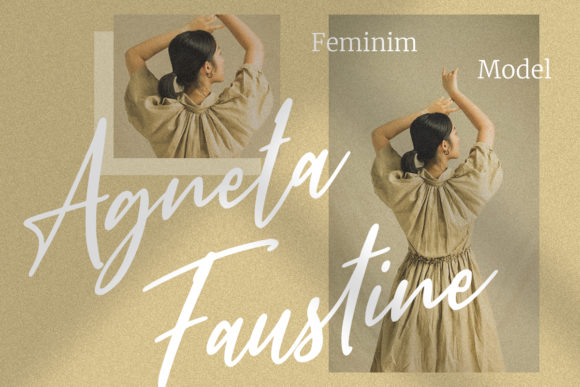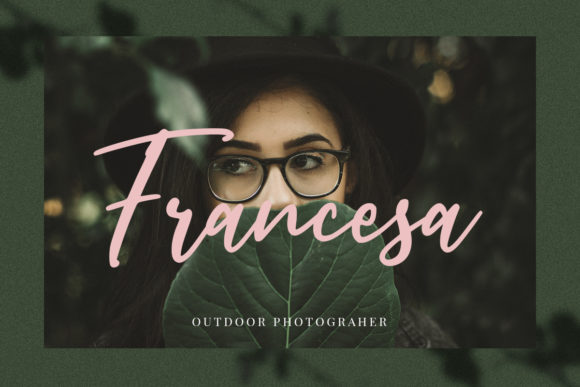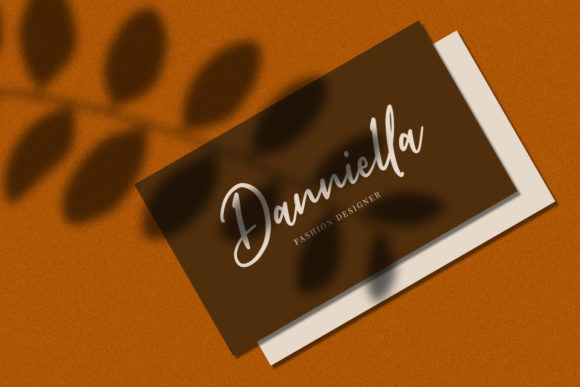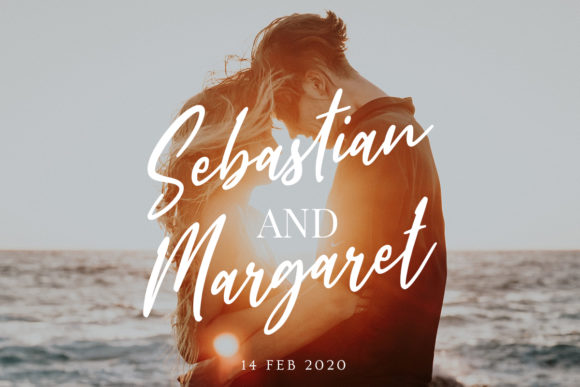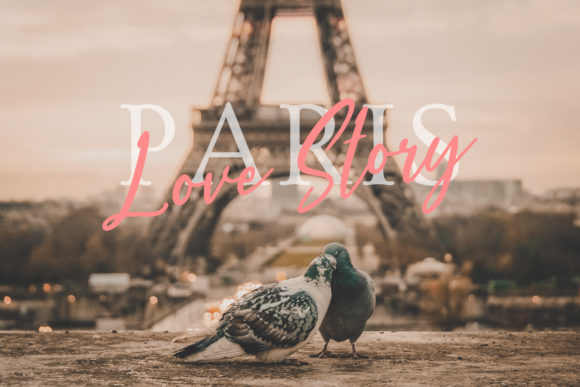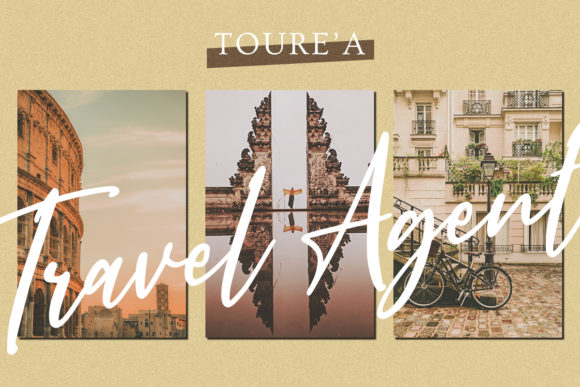
Introduction to Mallinkha Font
Mallinkha simplifies elegance into one truly outstanding handwritten font.
This font is the perfect fit for all of your logos, branding, social media, and crafty DIY projects .